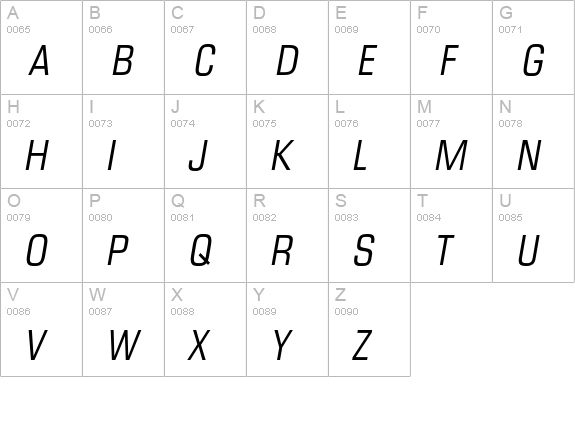
EuropeCond Italic is a distinctive, italic variant in the EuropeCond typeface family \xE2\x80\x94 well suited to design and typography projects.
EuropeCond Italic font is a modern and elegant typeface that exudes sophistication and style. With its sleek and slanted design, this font is perfect for adding a touch of class to any project. The italicized letters give a sense of movement and fluidity, making it ideal for use in headings, titles, and other prominent text elements. One of the best features of EuropeCond Italic font is that it is available for free download at FontsMarket.com. This means that you can easily access this high-quality font without any cost, making it a valuable addition to your design toolkit. Whether you're working on a branding project, website design, or any other creative endeavor, EuropeCond Italic font is sure to elevate your work with its timeless appeal.